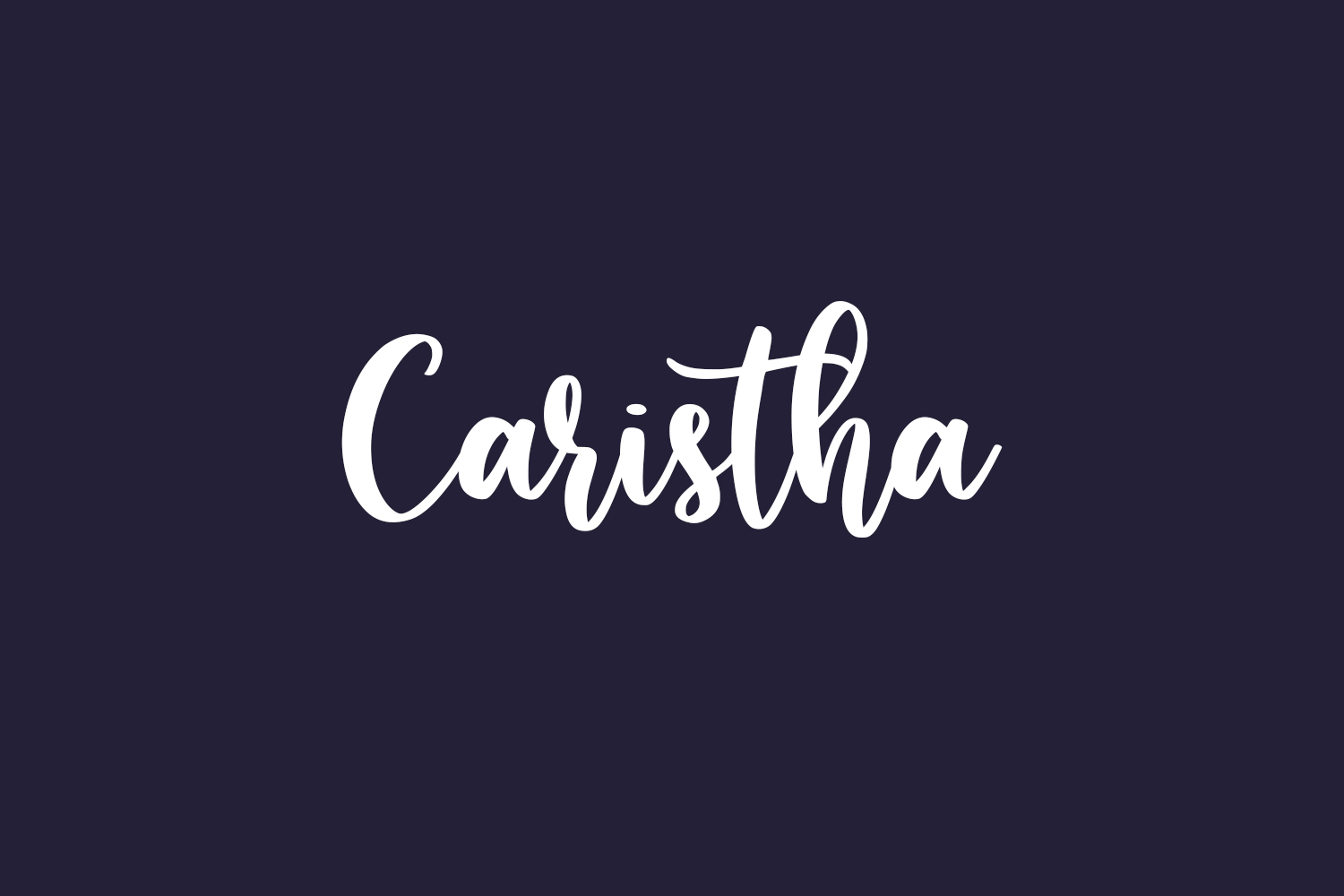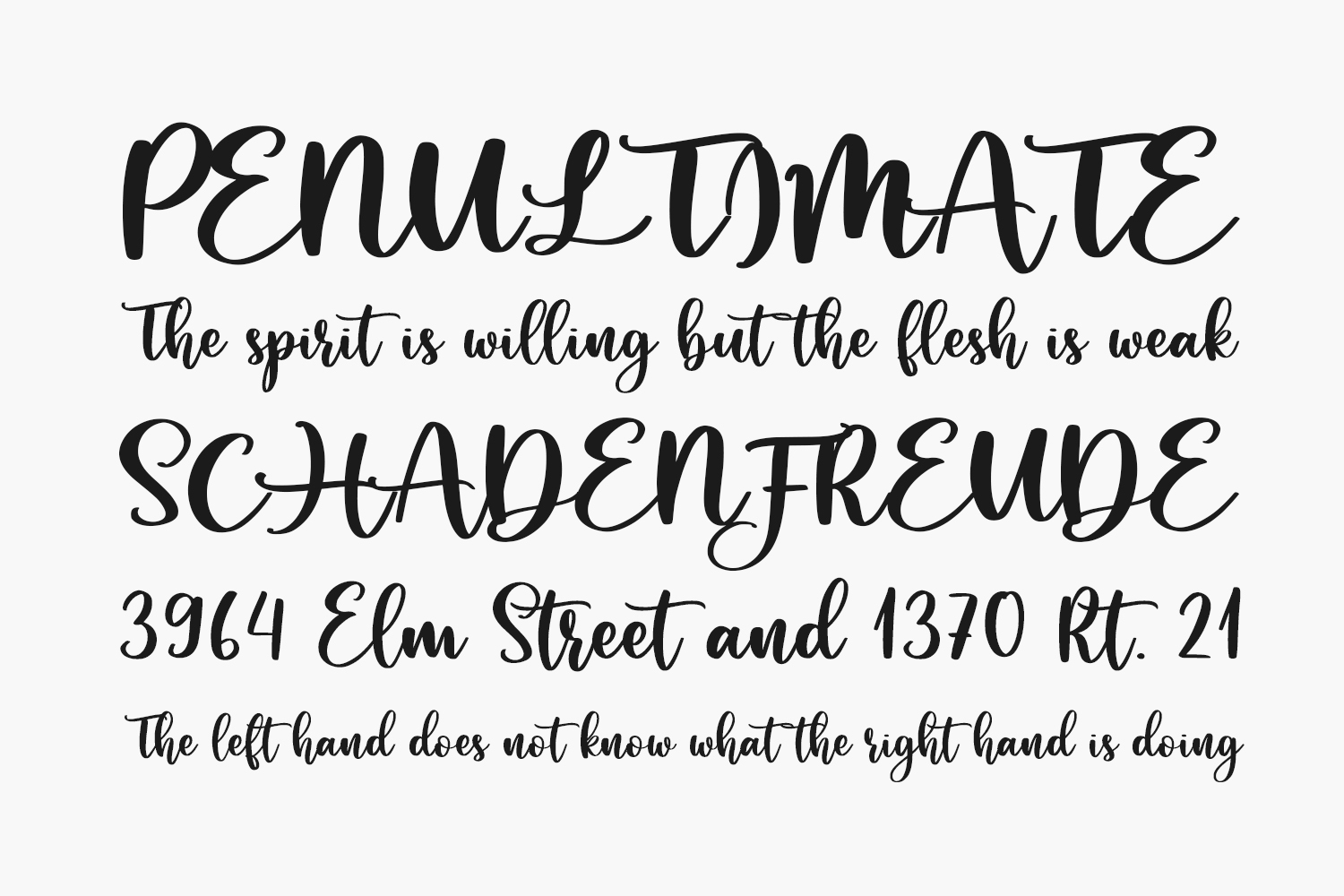
Caristha Free Font is a sweet, soft hand-lettered font. Get inspired by its authentic feel and use it to create gorgeous wedding invitations, beautiful stationary art, eye-catching social media posts, and cute greeting cards. Caristha Free Font was designed by Abo Daniel Studi and is free for personal use only. Please purchase the full version for commercial use.